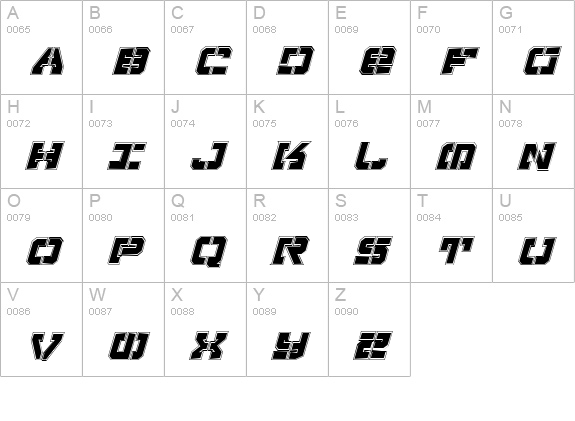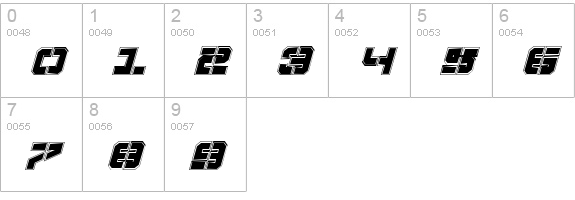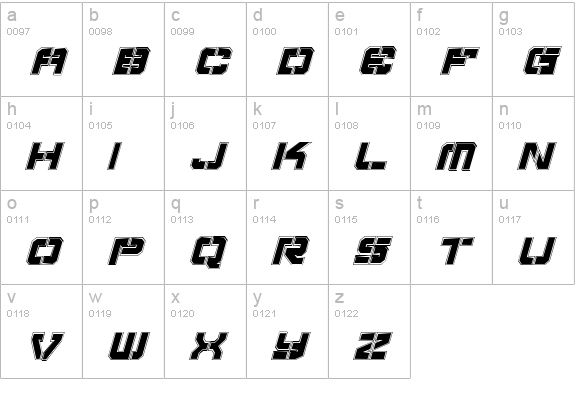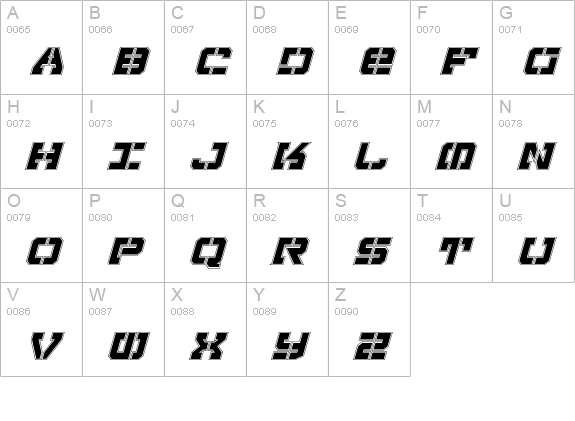
Vyper Pro Italic is a distinctive, italic variant in the Vyper typeface family \xE2\x80\x94 well suited to design and typography projects.
Vyper Pro Italic font is a sleek and sophisticated typeface that exudes elegance and modernity. Its italic style adds a touch of flair and creativity to any design project, making it perfect for branding, advertising, and editorial purposes. The sharp lines and unique curves of Vyper Pro Italic font create a visually striking appearance that demands attention. And the best part? Vyper Pro Italic font is available for free download at FontsMarket.com. Now you can elevate your designs with this stunning font without breaking the bank. Whether you're a designer, marketer, or content creator, Vyper Pro Italic font is sure to become a valuable addition to your typography toolkit. Download it today and unleash your creativity with this stylish and versatile typeface.